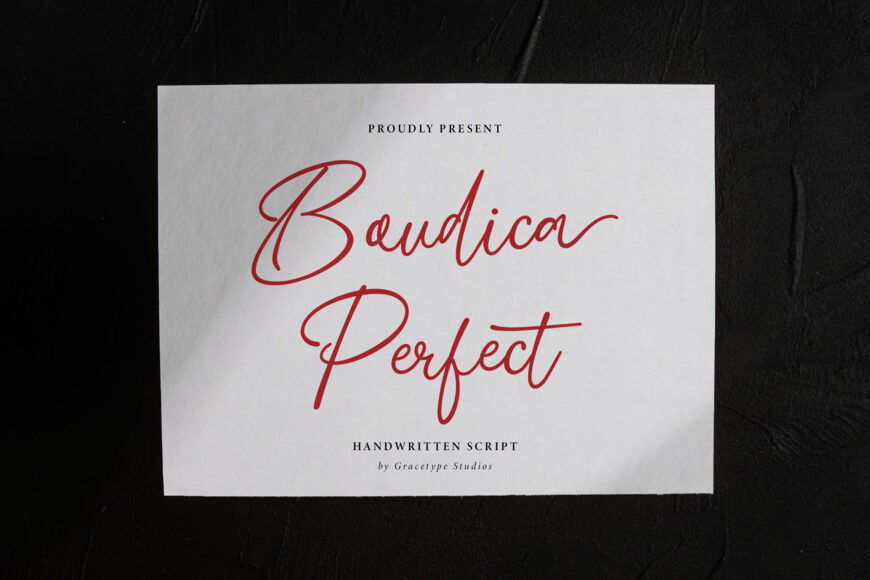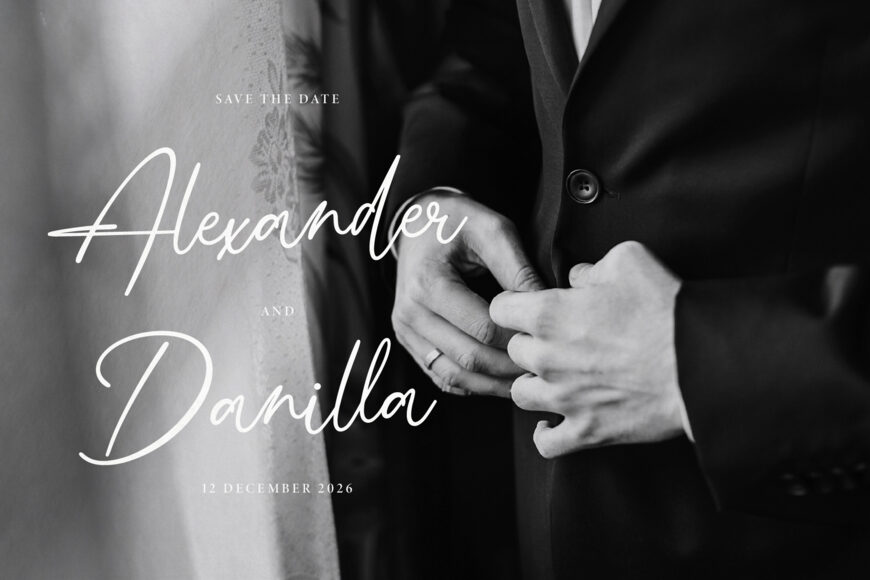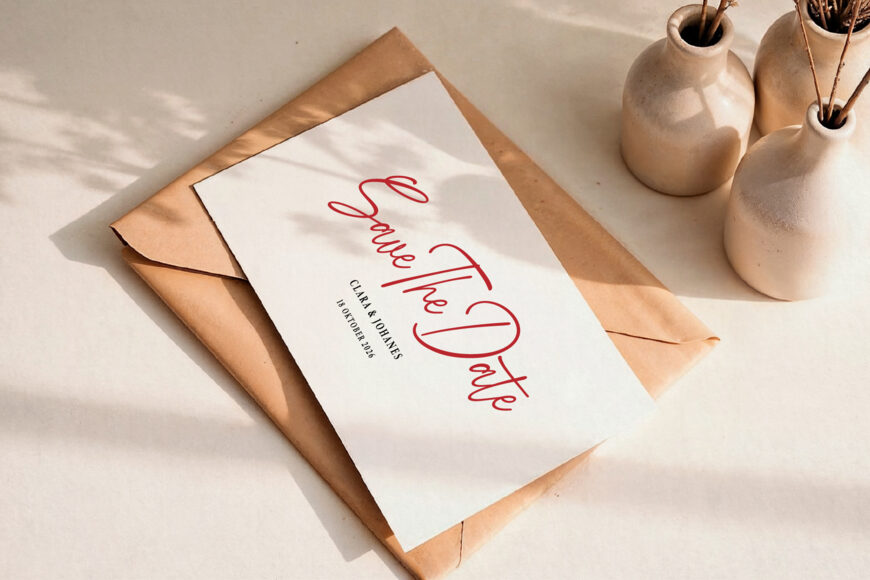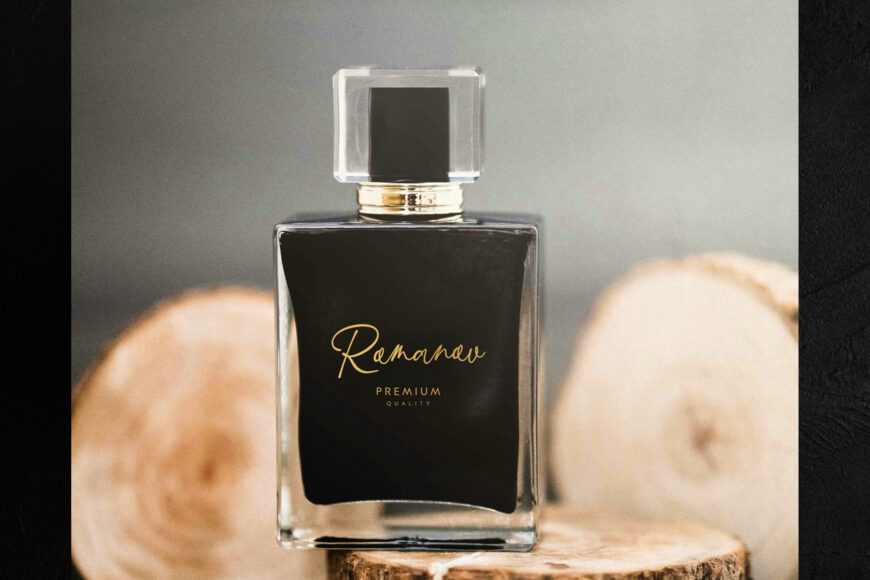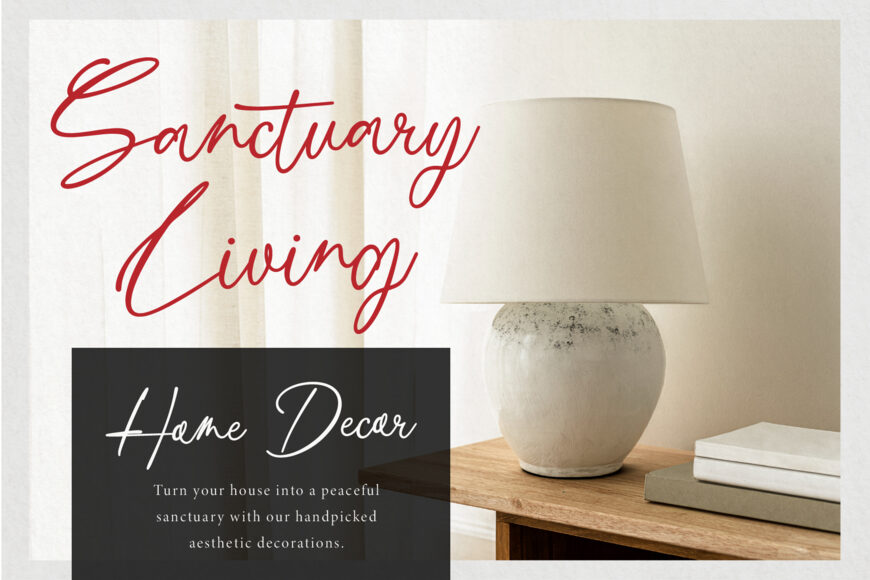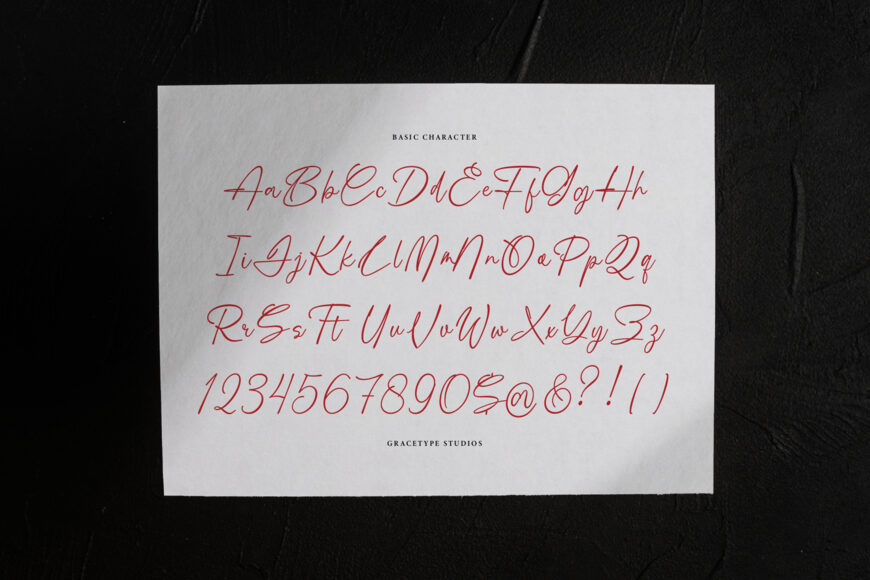
Infuse modern romantic charm, graceful movement, and an authentic personal touch into your typography with Boudica Perfect! Crafted with smooth, flowing monoline lines, high dramatic loops, and relaxed calligraphic connections, this beautiful handwritten script effortlessly brings a chic, custom-made feel to every design.
Whether you’re creating romantic wedding invitations, boutique product packaging, luxury photography watermarks, social media quote graphics, fashion logos, or custom craft SVG projects, Boudica Perfect adds effortless elegance and timeless handcrafted beauty to your work.